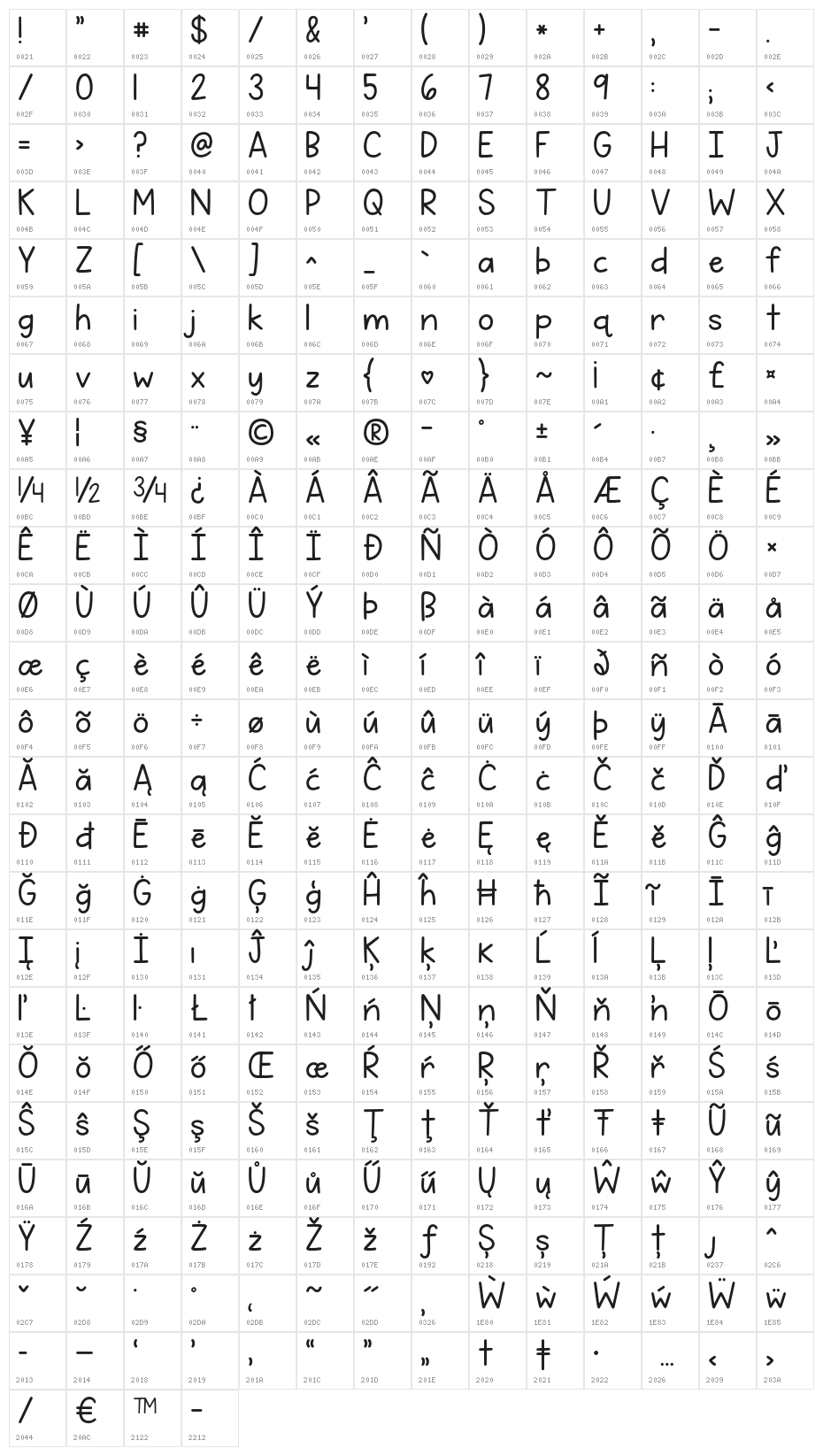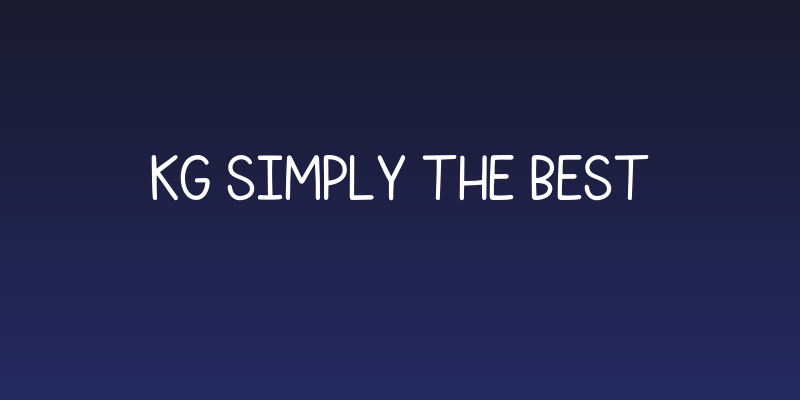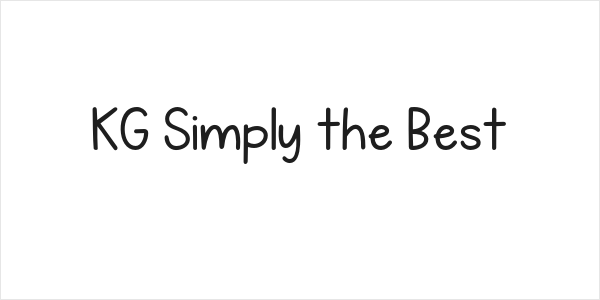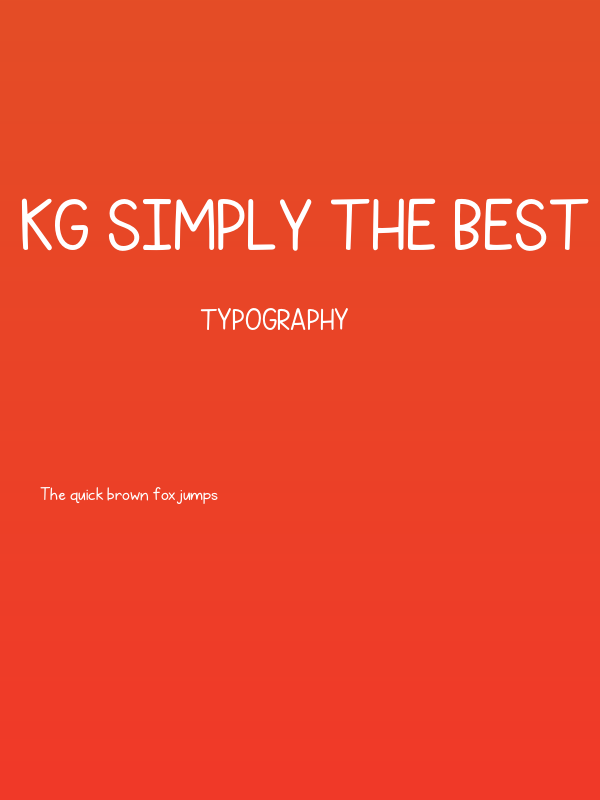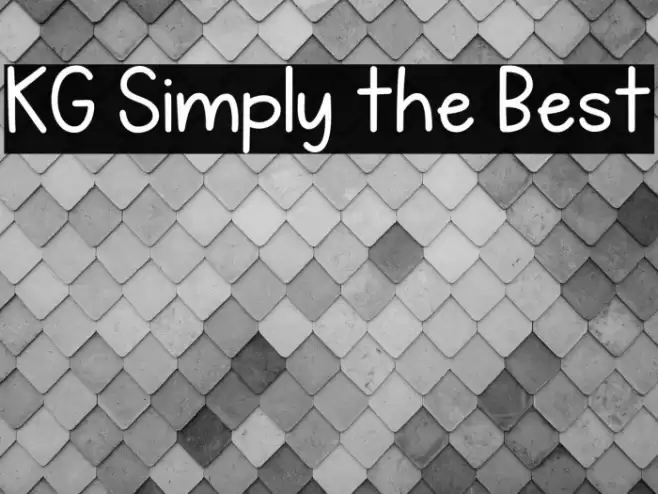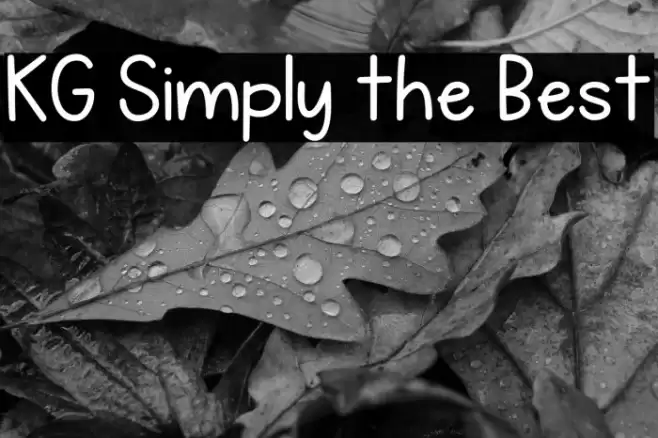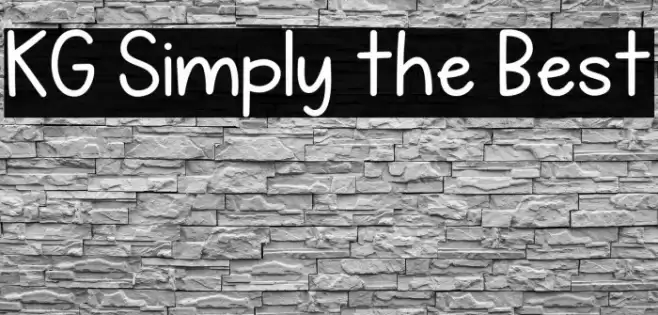
KG Simply the Best Font
KG Simply the Best Description
A playful, handwritten font with rounded edges and a casual style, suitable for informal and friendly designs.
| Use Case | Headlines, Informal text, Creative projects. |
| Proposed Projects | Greeting cards, children's books, casual invitations. |